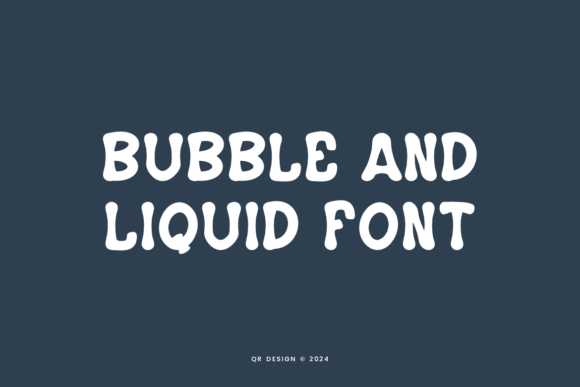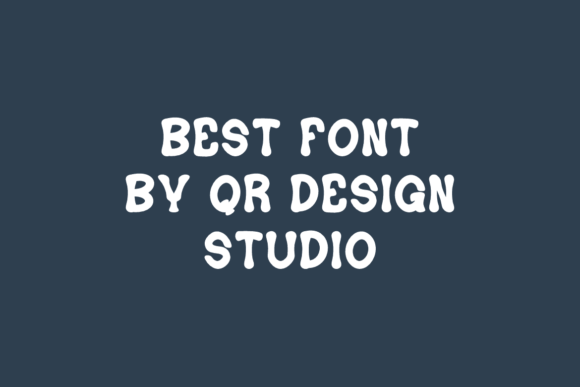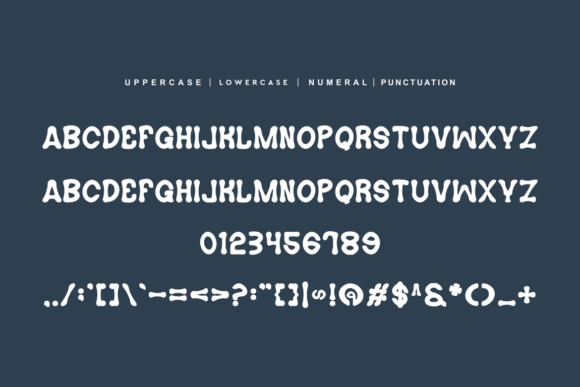
Ghomica Font: The Quirky Display Font You Need for Your Designs
Ghomica is a unique and interesting display font that has been gaining popularity among designers and crafters. A little bit quirky, this font looks incredibly adept on a wide variety of contexts, making it a versatile addition to any design project. In this article, we’ll dive into the world of Ghomica font, exploring its features, uses, and benefits for designers and crafters.
What is Ghomica Font?
Ghomica font is a display font that stands out from the crowd with its distinctive and quirky style. Its unique design makes it perfect for adding a touch of personality to any design project, from logos and branding to posters, flyers, and more. The font’s quirky nature makes it ideal for designs that require a bit of whimsy and playfulness.
Features of Ghomica Font
So, what makes Ghomica font so special? Here are some of its key features:
- Unique and quirky design: Ghomica font has a one-of-a-kind design that sets it apart from other fonts.
- Display font: Ghomica is a display font, making it perfect for headlines, titles, and other display text.
- Versatile: Despite its quirky nature, Ghomica font is incredibly versatile and can be used in a wide range of contexts.
- Easy to read: Despite its unique design, Ghomica font is still easy to read, making it perfect for designs that require a bit of flair without sacrificing legibility.
Uses of Ghomica Font
Ghomica font is a versatile font that can be used in a wide range of design projects, including:
- Logos and branding: Ghomica font is perfect for creating unique and memorable logos and branding materials.
- Posters and flyers: Add a touch of whimsy to your posters and flyers with Ghomica font.
- Social media graphics: Ghomica font is perfect for creating eye-catching social media graphics that stand out from the crowd.
- Packaging design: Use Ghomica font to add a touch of personality to your packaging design.
Benefits of Using Ghomica Font
So, why should you use Ghomica font in your design projects? Here are some of the benefits:
- Adds personality: Ghomica font adds a touch of personality to your designs, making them more memorable and engaging.
- Stand out from the crowd: Ghomica font is unique and quirky, making it perfect for designs that need to stand out from the crowd.
- Versatile: Ghomica font can be used in a wide range of contexts, making it a versatile addition to any design project.
- Easy to use: Ghomica font is easy to use and can be easily integrated into your design workflow.
Tips for Using Ghomica Font
Here are some tips for using Ghomica font in your design projects:
- Use it sparingly: Ghomica font is a display font, so use it sparingly to add emphasis and personality to your designs.
- Pair it with other fonts: Ghomica font pairs well with other fonts, so experiment with different font combinations to find the perfect look.
- Experiment with colors: Ghomica font looks great in a wide range of colors, so experiment with different colors to find the perfect look.
Ghomica font is a unique and interesting display font that is perfect for designers and crafters looking to add a touch of personality to their designs. With its quirky design, versatility, and ease of use, Ghomica font is a great addition to any design project. Whether you’re creating logos and branding, posters and flyers, or social media graphics, Ghomica font is sure to make your designs stand out from the crowd.